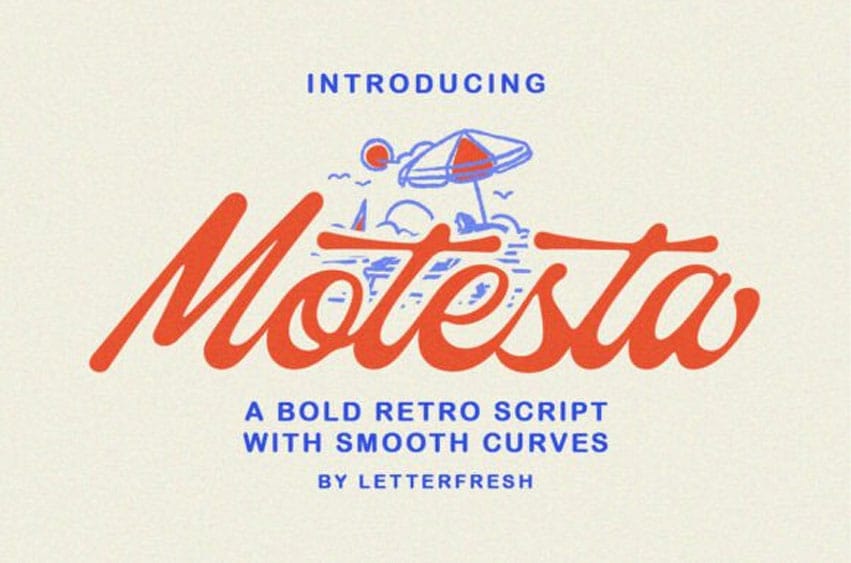
Motesta Script Font is a dynamic handwritten typeface inspired by a blend of modern retro aesthetics and classic American traditional design. With its nostalgic charm and fluid strokes, Motesta brings authenticity and character to your typography—perfect for those seeking a stylish script with a vintage soul.
Design & Use
Created for both versatility and practicality, Motesta Script allows you to craft handwritten-style lettering with ease. Whether you’re designing:
Logos
​​​​​​​Hand-lettered quotes
Product packaging
Posters & headers
Social media graphics
Greeting cards
Merchandise & apparel
Motesta will deliver a memorable, handcrafted impression.